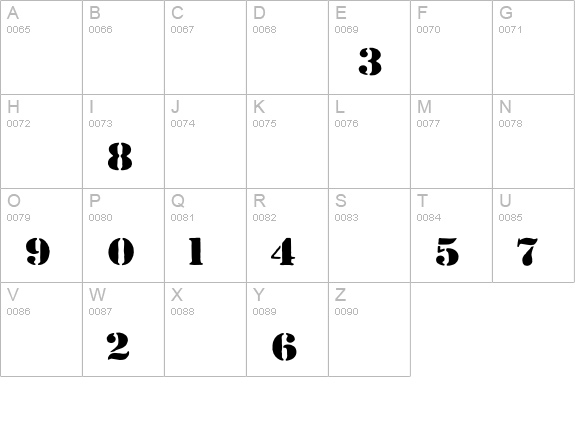
NumericsP06 Font Details
NumericsP06 font is a modern and sleek typeface that exudes sophistication and clarity. With its clean lines and geometric shapes, this font is perfect for a wide range of design projects, from branding to editorial layouts. The versatility of NumericsP06 allows it to be used in both digital and print media, making it a valuable addition to any designer's toolkit. What sets NumericsP06 apart is not just its striking aesthetics, but also the fact that it is available for free. Yes, you read that right - this high-quality font can be downloaded at no cost from FontsMarket.com. Whether you're a seasoned professional or a design enthusiast looking to elevate your projects, NumericsP06 is a must-have font that will add a touch of sophistication to your work. Download it today and see for yourself the impact this font can make on your designs.